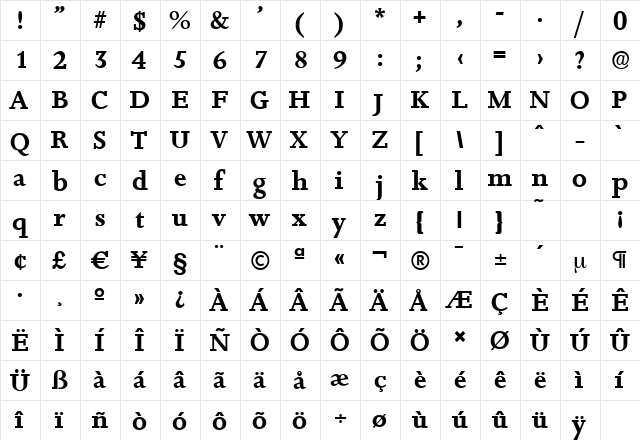
JessicaSerial Bold
Design Context for JessicaSerial Typeface
JessicaSerial is a composed and adaptable typeface that performs quietly and consistently across a wide range of design contexts. Its bold stroke weight gives it real presence on the page.